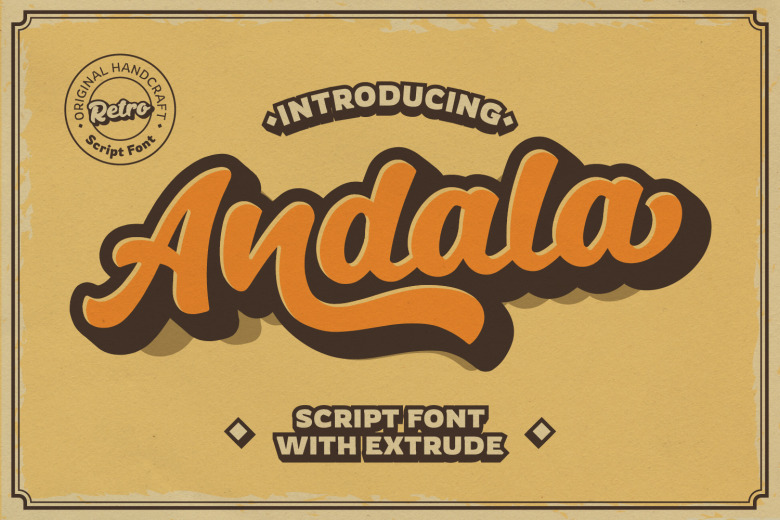
Andala Script Font
Andala Font is a vintage script typeface. The classic feel is really perfect for you who needs a typeface for retro / vintage theme. This font is designed and shared by Auratype. It’s inspired from retro style and funky design. This font comes with an extra extrude to make the font look more retro / unique and save your time on making it. This font has an opentype feature that allows you to modify it and look it as you like as needed. Andala is perfect for use on posters, logos, book covers, t-shirt designs, packaging and more.